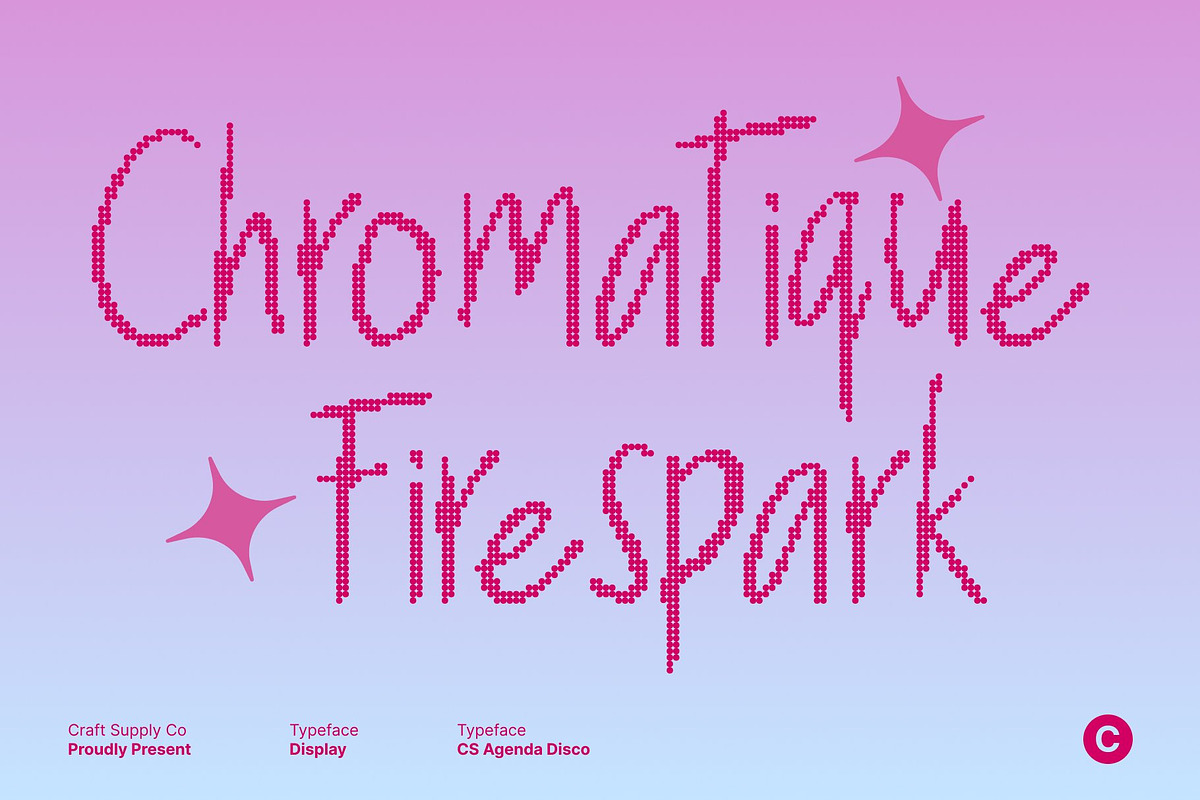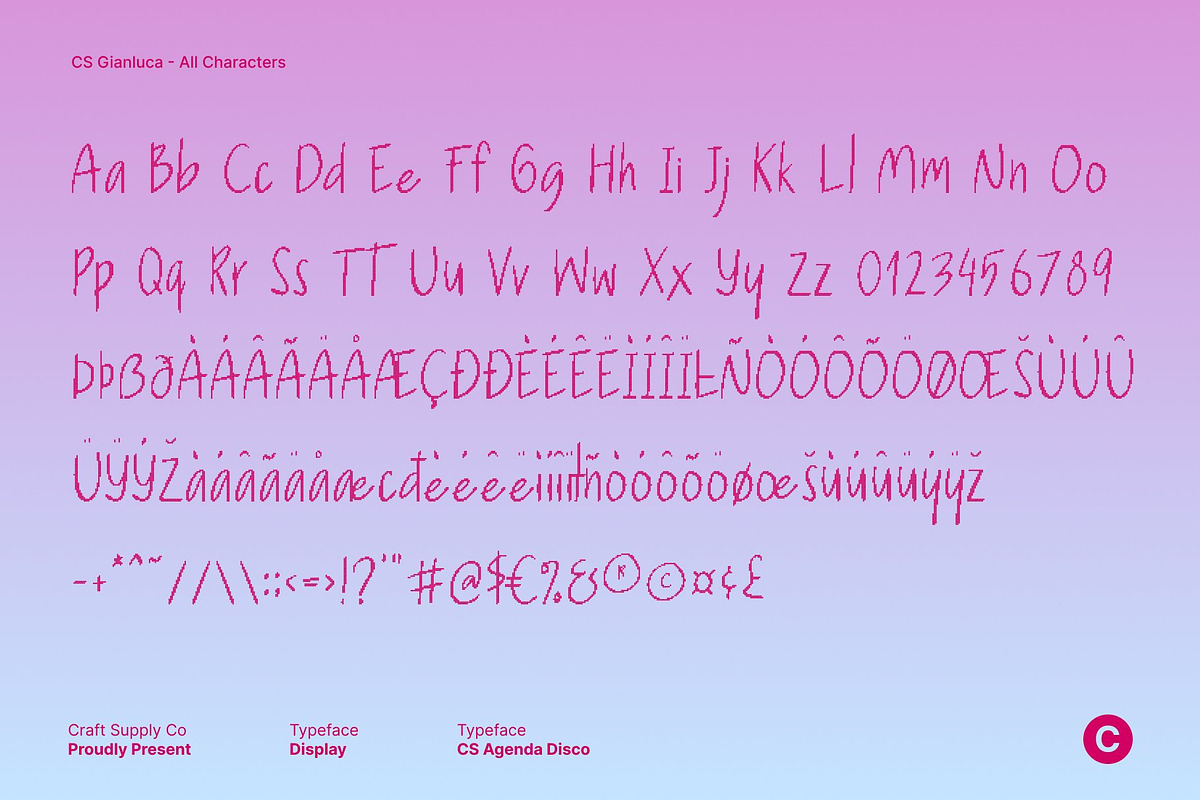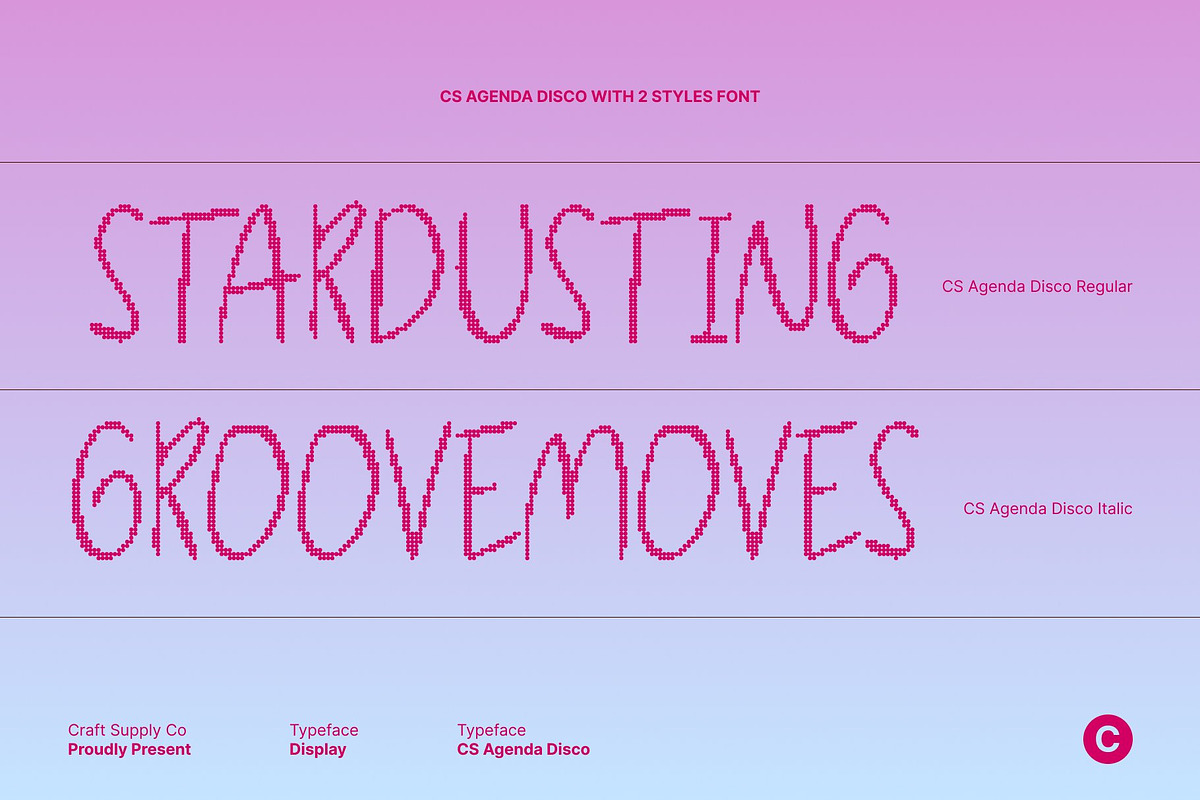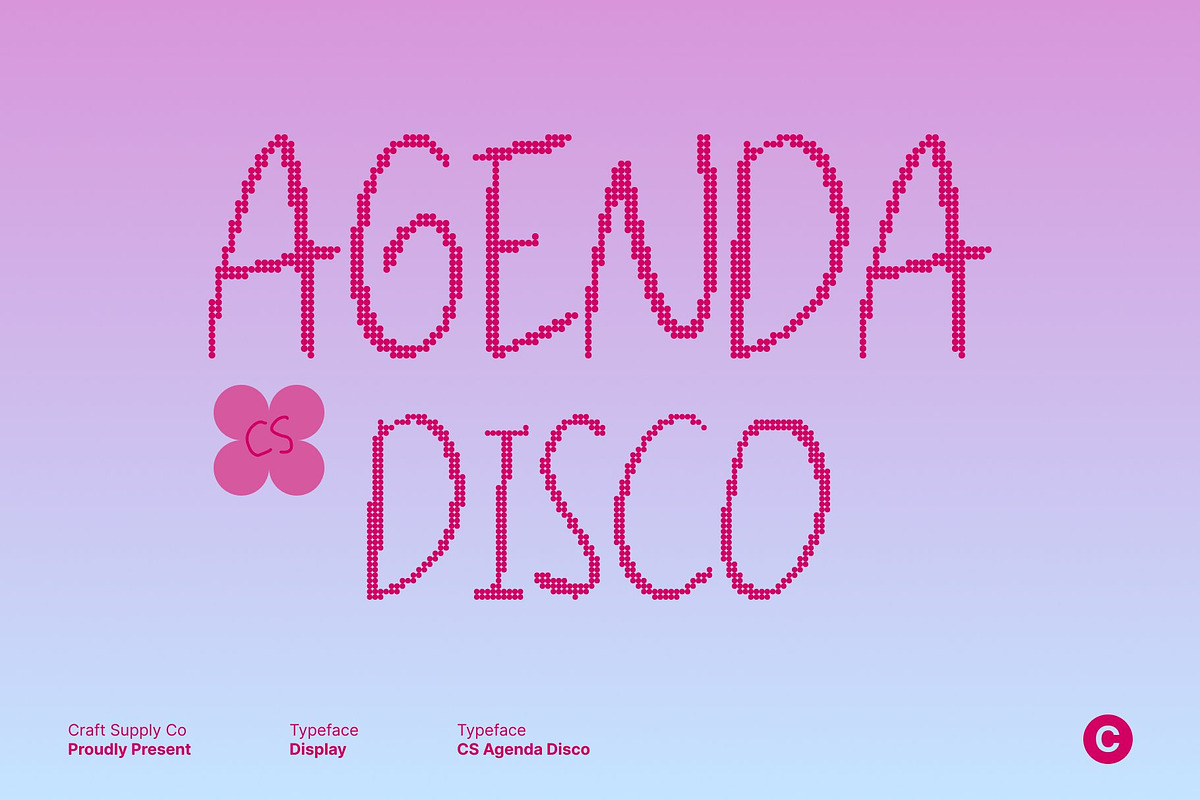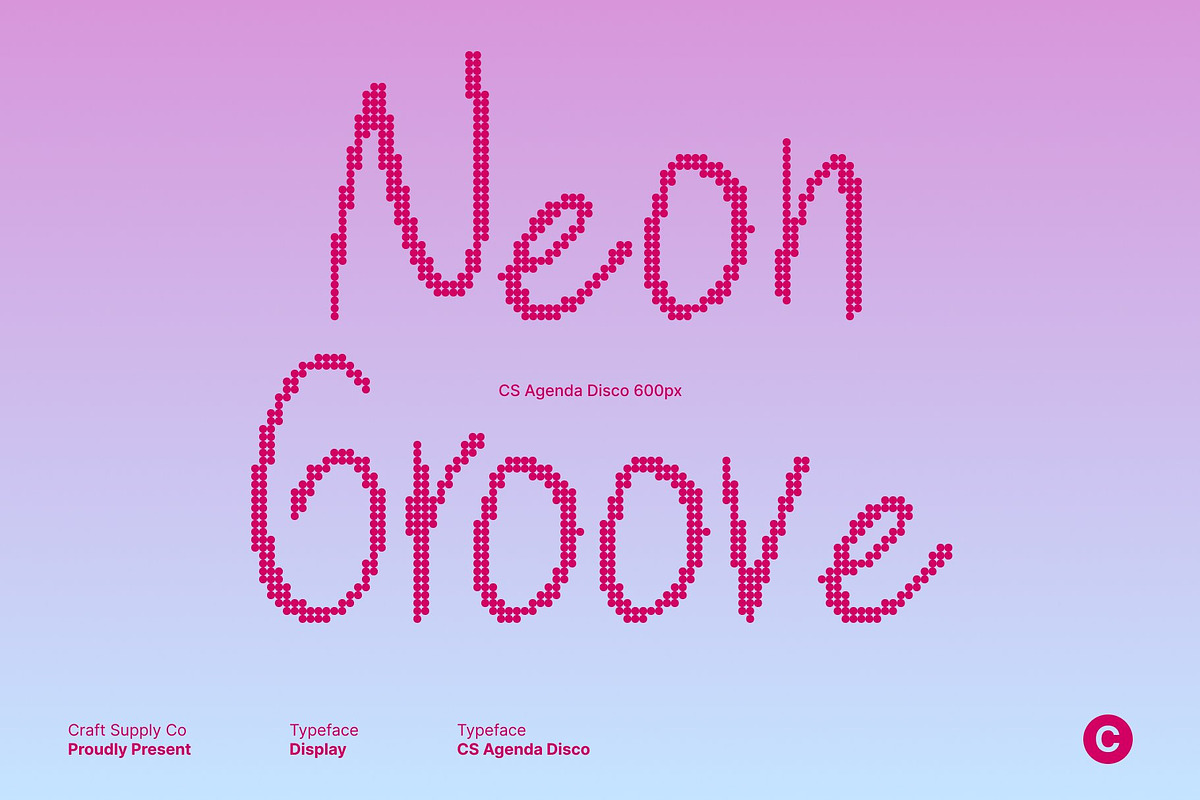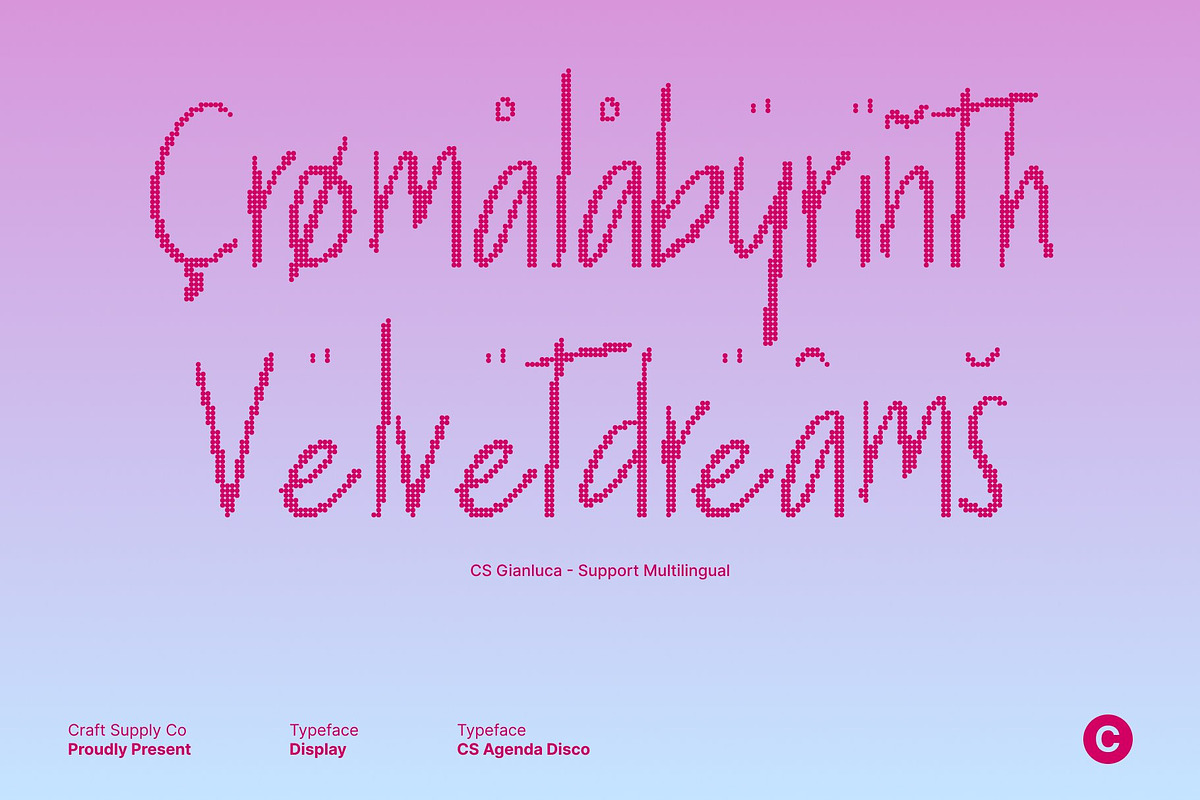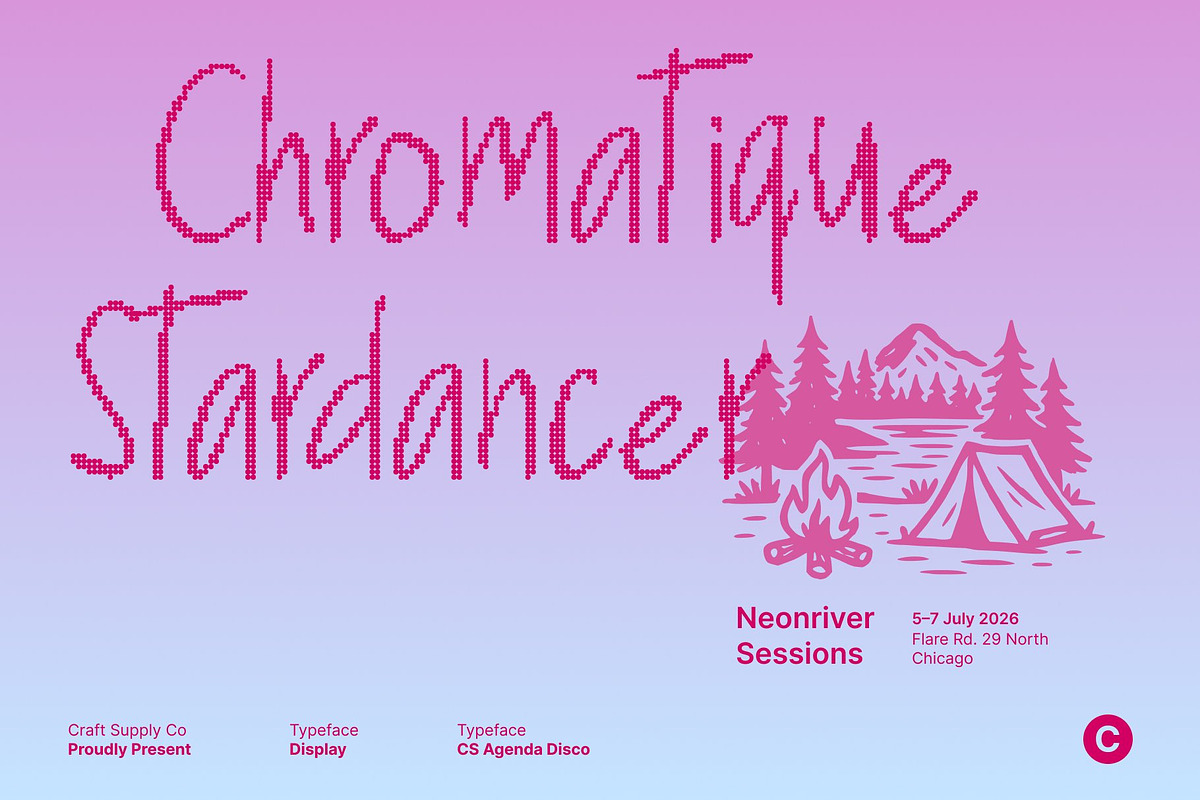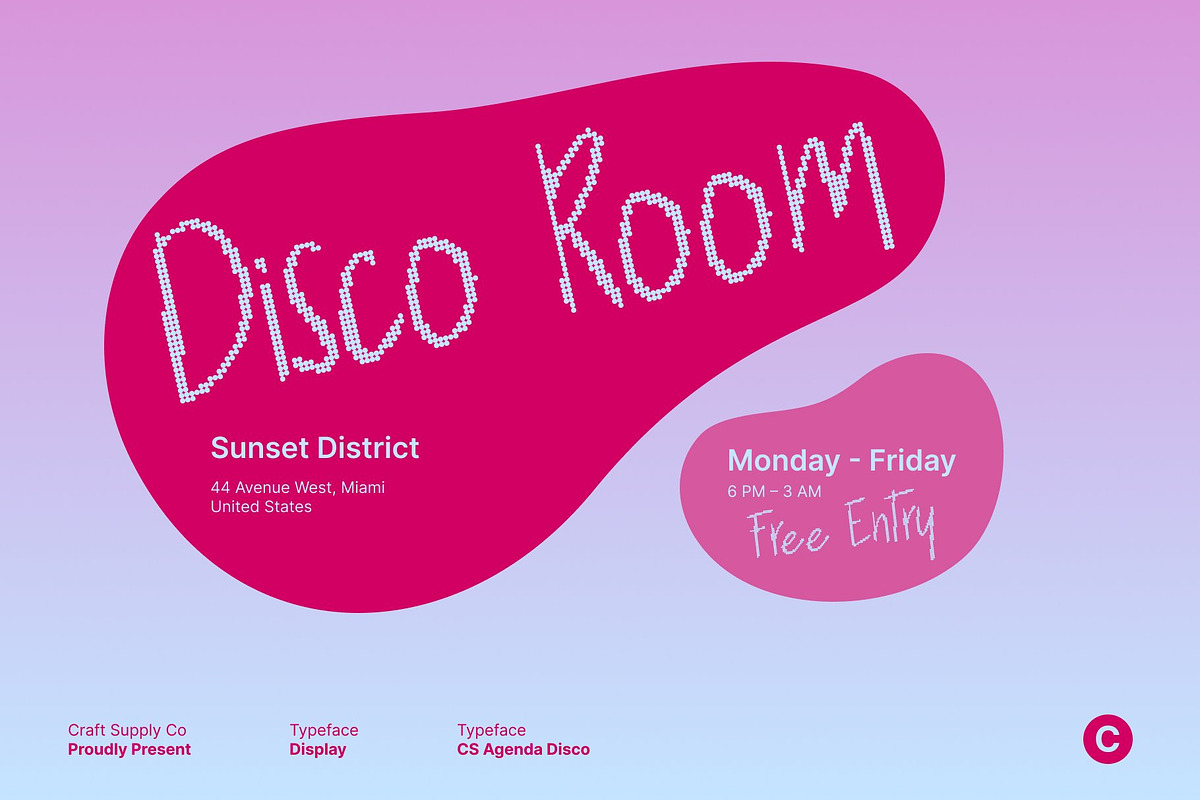
CS Agenda Disco
CS Agenda Disco – Handwritten Warmth with a Sparkling Twist
Expressive Handwritten Font with Disco Shine This font blends natural penmanship with a modern shimmering flair, creating a font that feels both authentic and eye catching. Its flowing strokes and casual rhythm capture the beauty of handwriting, while the disco inspired sparkle adds a lively and contemporary edge.
Natural Strokes for Authentic Expression Each letter is crafted to emulate genuine pen movement, giving your designs a sense of warmth, sincerity, and personal charm. This makes this font ideal for personal branding, social media quotes, greeting cards, or invitations that seek a human, relatable touch.
Disco Effect for Modern Glamour The subtle disco display look enhances the handwritten texture with shimmering highlights that bring your text to life. It’s a perfect fusion of organic softness and digital brilliance, ideal for modern, creative, or festive projects.
Versatile for Both Print and Digital Design From casual logos and digital branding to stylish editorial layouts and posters, this font adapts beautifully. It delivers a balance of comfort and sophistication, making it suitable for a wide range of design needs.